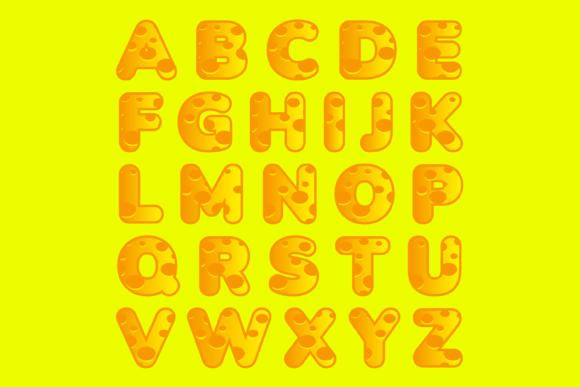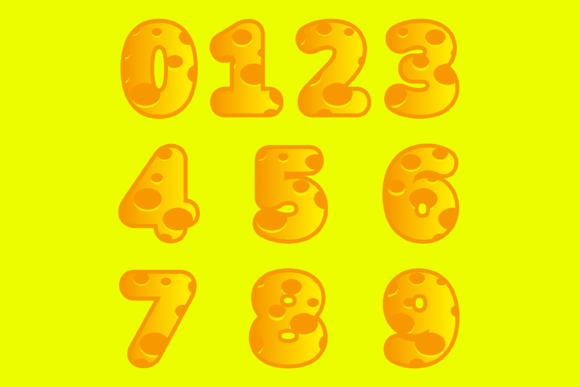
Introducing Cheese Font: The Fun and Friendly Cheddar-Themed Color Font
Are you looking for a font that adds a playful and friendly touch to your designs? Look no further than Cheese Font, a vibrant and fun color font inspired by the beloved theme of Cheddar cheese. This amazing font is perfect for designers, crafters, and DIY enthusiasts who want to add a dash of whimsy to their creations.
What Makes Cheese Font So Special?
Endless Creative Possibilities with Cheese Font
Cheese Font is an incredibly cool color font designed with a fun Cheddar theme, making it perfect for a wide range of creative projects. Here are just a few ideas to get you started:
- Custom Designs: Add a playful touch to your branding, packaging, or advertising materials with Cheese Font. Its friendly and approachable vibe is sure to delight your audience.
- Experiment with Colors: One of the best things about color fonts like Cheese Font is the ability to change colors easily. Try different color combinations to match your brand or project’s aesthetic.
- Play with Size and Scale: Cheese Font looks great in various sizes, from small and delicate to large and bold. Don’t be afraid to experiment with different font sizes to achieve the desired impact.
- Mix and Match: Combine Cheese Font with other fonts or design elements to create unique and eye-catching compositions.